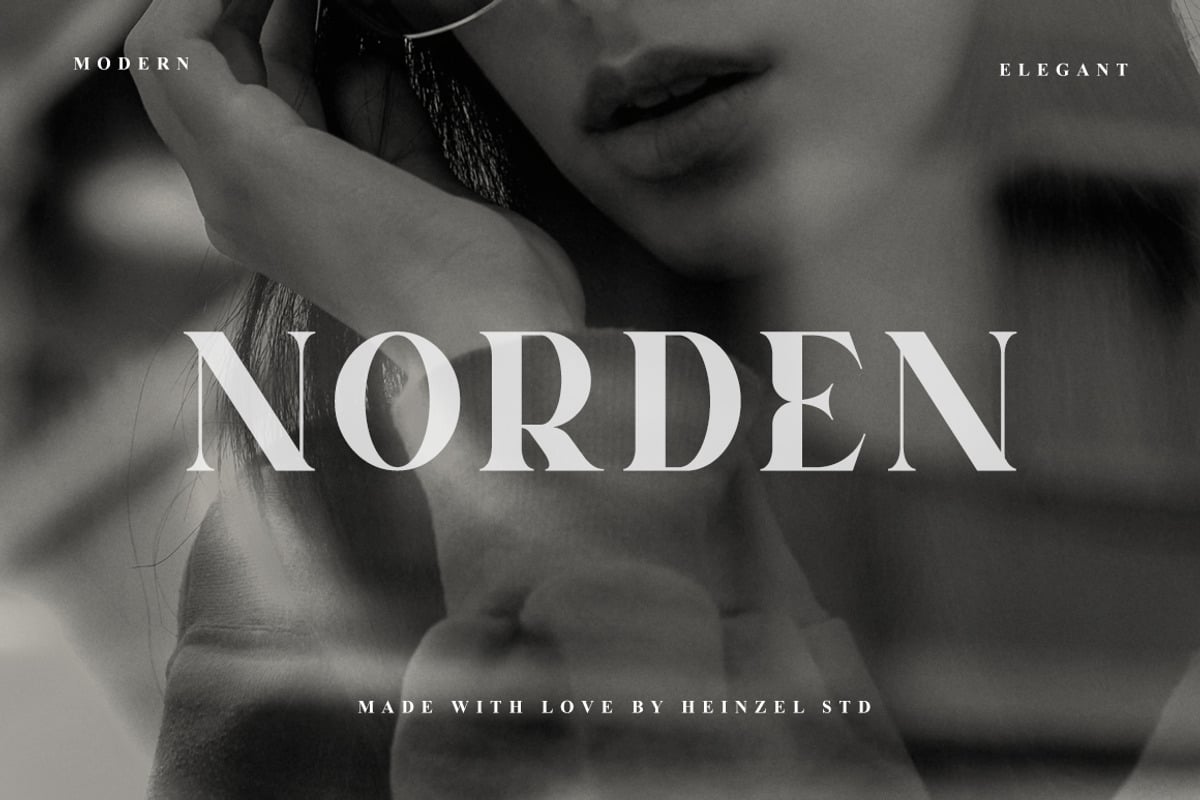
Norden Modern All Caps Serif Font
Norden is the all-caps serif typeface built for bold, beautiful design that commands attention.
Elegant, modern, and effortlessly refined, Norden is a fully capitalized serif font designed for creatives who want their work to make a lasting impression. Its striking letterforms bring a sophisticated edge to any project — from high-fashion editorials to luxury branding.
Perfect for a wide range of design applications, including:
- Logos and brand identities
- Headlines and titles
- Magazine layouts
- Wedding invitations and stationery
- Social media graphics
- And much more
- Norden Regular — all caps serif with numerals and extended punctuation